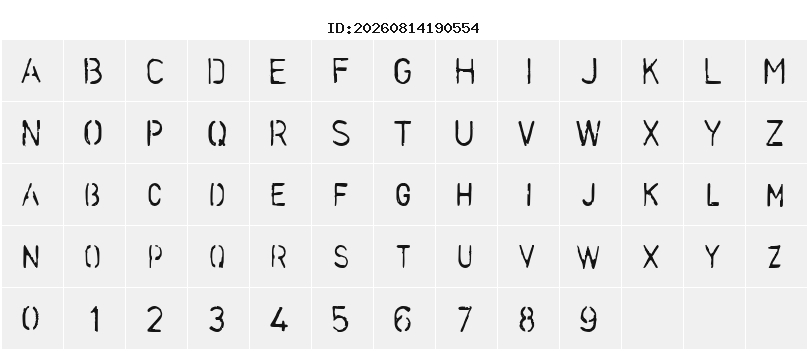
Stencilcase Preview
• Font Name: Stencilcase
• Full Font Name: Stencilcase Bold
About Stencilcase.ttf
Stencilcase.ttf is a modern, elegant sans-serif font designed for ultimate readability and visual harmony. Perfect for branding, headlines, web design, and print materials.